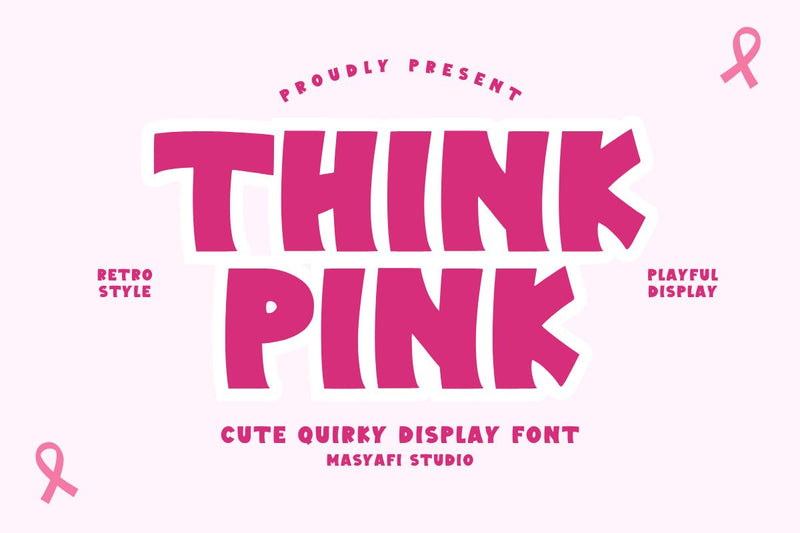
Think Pink - Cute Display Font
Think Pink is a fun and cute quirky font, inspired by breast cancer poster design. This font is perfect for a design that requires a playful and fun accent. Think Pink is suitable for book covers, posters, packaging, merchandise, logotype, and much more.